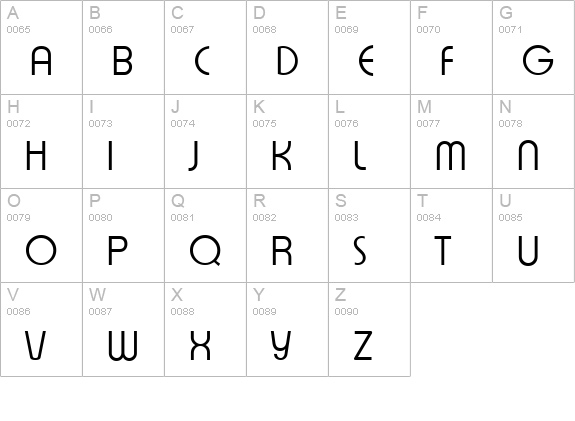
ExpressaSerial-Light-Regular Font Details
ExpressaSerial-Light-Regular is a refined, elegant variant in the ExpressaSerial typeface family \xE2\x80\x94 well suited to elegant body text, refined sub-headings, and luxury branding.
ExpressaSerial-Light-Regular is a sleek and modern typeface that exudes elegance and sophistication. Its clean lines and smooth curves make it a versatile choice for a wide range of design projects. Whether you're creating a professional presentation or designing a stylish website, this font is sure to make a lasting impression. With its light weight and easily readable glyphs, ExpressaSerial-Light-Regular is perfect for conveying a sense of simplicity and clarity in your designs. The subtle contrast between thick and thin strokes adds a touch of sophistication, making it suitable for both headlines and body text. Best of all, ExpressaSerial-Light-Regular is available for free download at FontsMarket.com. This means you can start using this beautiful font in your projects right away, without having to worry about any licensing fees. Don't miss out on the opportunity to enhance your designs with this high-quality typeface – download ExpressaSerial-Light-Regular today!